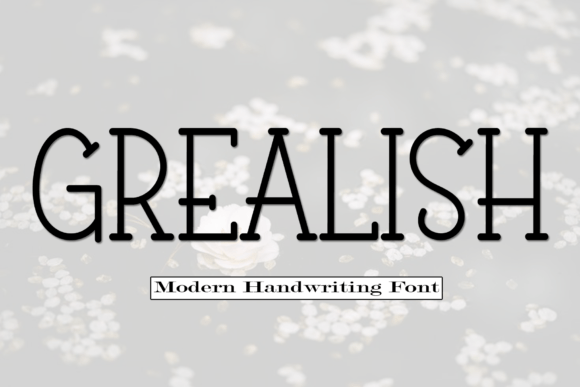
Dive into the realm of typography with the captivating Grealish Font, a breathtaking masterpiece designed to leave an indelible mark on your creative endeavors. This exquisite handwritten font, hailing from the esteemed RR Studio, is a symphony of elegance and style, meticulously crafted to bring a touch of sophistication and charm to your designs.
Unleash your creativity and let the Grealish Font guide you towards a world of endless possibilities. Its mesmerizing strokes, reminiscent of a skilled calligrapher's hand, will elevate your designs, transforming them into works of art. Whether you're crafting wedding invitations that exude romance or creating logos that radiate professionalism, Grealish Font is the perfect companion, ready to elevate your vision and leave a lasting impression.
Immerse yourself in a kaleidoscope of creative applications, allowing the Grealish Font to enhance your projects with its versatility. From thank-you cards that convey genuine gratitude to quotes that resonate with meaning, this font knows no bounds. Unleash your imagination and let Grealish Font become your artistic muse, guiding you towards captivating greeting cards and business cards that speak volumes about your attention to detail.
Step into the spotlight and let Grealish Font be the protagonist of your logo designs, commanding attention and leaving an unforgettable mark. Its chic and refined appearance will set your brand apart, attracting customers with its timeless appeal. Whether you're aiming for a classic or contemporary aesthetic, Grealish Font has the power to transform your designs into visual masterpieces.
Experience the allure of Grealish Font today and embark on a creative journey like no other. Let its graceful strokes become an extension of your imagination, turning your design dreams into a reality. Immerse yourself in a world of elegance and sophistication, where every word carries a story and every design tells a tale. With Grealish Font as your creative ally, you'll discover a new level of design excellence, leaving a lasting impression on all who encounter your work.